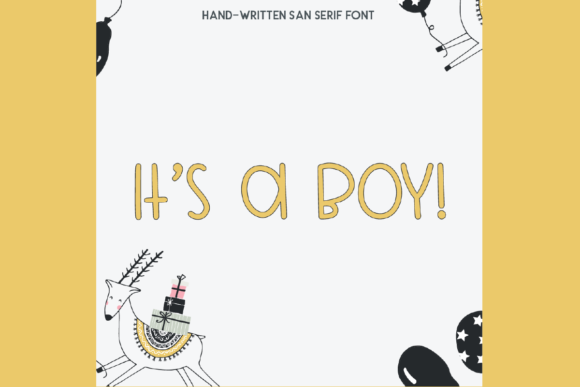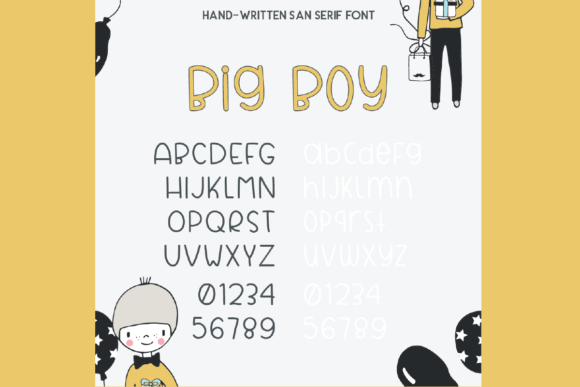
The Perfect Font for a Casual Touch: Big Boy Font
Have you ever been working on a design project and suddenly realized that the font just isn’t capturing the relaxed, laid-back vibe you’re going for? You know, that moment when you’re sipping your coffee, staring at your computer screen, and wishing you had the perfect font to bring your design to life.
Enter Big Boy Font – a charming, handwritten font that’s sure to add a touch of whimsy to your creations. With its informal style and casual vibe, Big Boy Font is the perfect choice for designers who want to add a relaxed, friendly feel to their work. Whether you’re designing a logo, a poster, or a social media graphic, Big Boy Font is a valuable asset to have in your design toolkit.
Big Boy Font Key Features
- Font Family: Big Boy is a sans-serif font family.
- Unique Characteristics: Big Boy Font features a bold and playful design with rounded edges, making it suitable for titles, headings, and display typography.
Big Boy Font Review
I recently had the chance to work with the Big Boy Font, and here’s my honest review.
The Big Boy Font is a great option for anyone looking for a bold and playful font. It’s perfect for use in titles, headings, and other text elements where you want to add some visual punch. The font is highly customizable, with a wide range of weights and styles to choose from.
- Highly customizable with various weights and styles
- Perfect for use in titles, headings, and other text elements
- Playful and bold, great for adding visual interest
While the Big Boy Font is a great option for many projects, it does have some limitations. For example, it may not be the best choice for use in body text, as it can be quite difficult to read in large blocks of text. Additionally, the font may not be compatible with all devices or browsers, which could lead to some compatibility issues.
- May not be suitable for use in body text
- Potential compatibility issues with certain devices or browsers
Overall, I think the Big Boy Font is a great option for anyone looking to add some visual interest to their design. While it may have some limitations, it’s a versatile and highly customizable font that can be used in a wide range of projects. Just be sure to use it judiciously and in the right context.
The Big Boy Font is ideal for creating bold, eye-catching headlines and titles. It’s commonly used in:
- Restaurant menus and signage
- Marketing materials and advertisements
- Graphic design projects and logos
To get the most out of the Big Boy Font, experiment with different font sizes, colors, and styles to create a unique and attention-grabbing design.
Alternatives to Big Boy Font
Big Boy Font is a bold, playful font used for titles and headings in various designs. Here are a few alternatives to consider:
Great Vibes is a modern, elegant script font with a touch of playfulness. It’s perfect for titles, headings, and quotes in designs that require a creative and artistic feel.
Comparison: Great Vibes is more elegant and refined than Big Boy Font, making it suitable for a wider range of designs, from invitations to magazine covers.
Pacifico is a beautiful, cursive script font with a relaxed and casual feel. It’s ideal for designs that require a laid-back, beachy vibe or a touch of sophistication.
Comparison: Pacifico is more fluid and organic than Big Boy Font, making it perfect for designs that need a more natural and effortless feel.
Carolyna Pro is a bold, elegant serif font with a touch of sophistication. It’s perfect for titles, headings, and body text in designs that require a high-end, luxurious feel.
Comparison: Carolyna Pro is more refined and polished than Big Boy Font, making it suitable for designs that need a more professional and elegant look.